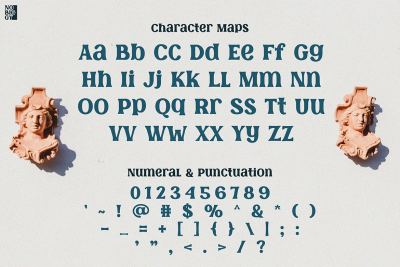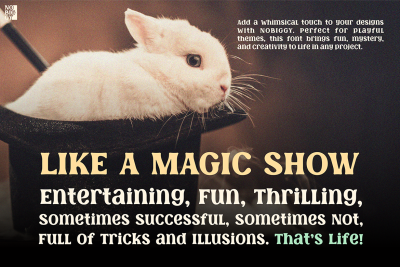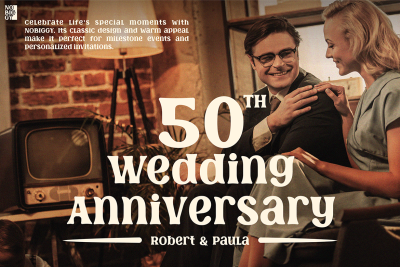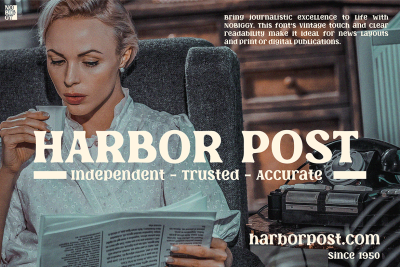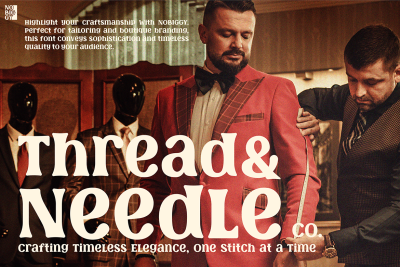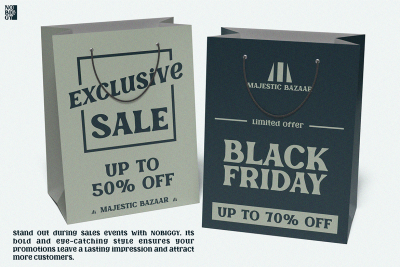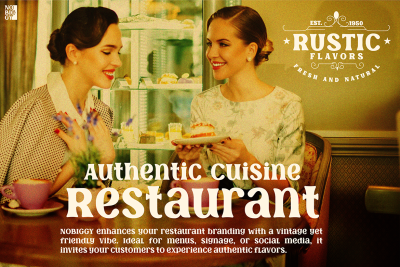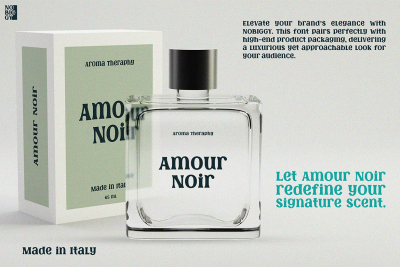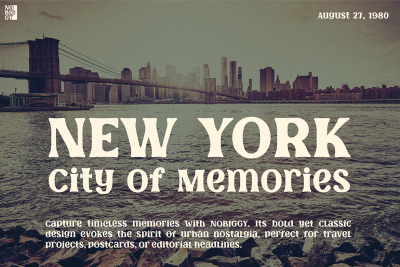
Retro Font NOBIGGY is a stylish and bold typeface that captures the essence of retro aesthetics with a modern twist. Its thick, rounded strokes and playful yet elegant letterforms exude nostalgia, evoking the charm of vintage designs from the 60s and 70s. Whether used for headlines, logos, or posters, this font effortlessly grabs attention while adding a distinctive retro vibe to any project.
The stylistic details of NOBIGGY make it unique. Each letter is carefully crafted with smooth curves and balanced proportions, ensuring visual harmony in any composition. Additionally, the font incorporates subtle decorative elements that enhance its retro appeal, making it versatile for a wide range of creative applications. Its timeless design allows it to blend seamlessly into both bold, colorful layouts and minimalist, monochromatic themes.
Moreover, NOBIGGY is highly adaptable. It works well in vintage-themed branding, editorial layouts, packaging designs, and social media graphics. The font’s character exudes energy and confidence, making it an excellent choice for projects aiming to stand out. With its retro charm and stylistic flair, Retro Font NOBIGGY is a must-have for designers seeking to add a touch of nostalgia to their work.
Retro Font NOBIGGY Who Is It For?
Retro Font NOBIGGY is perfect for creative professionals, entrepreneurs, and design enthusiasts who appreciate vintage aesthetics. Graphic designers will find it invaluable for creating bold and eye-catching visuals, such as album covers, event posters, and logo designs. Its retro yet versatile style makes it particularly appealing to those working in the entertainment, fashion, or lifestyle industries.
Small business owners, especially those in the hospitality or food industry, can use NOBIGGY to craft unique branding. For example, cafes, bars, or retro-themed restaurants can enhance their menus, signage, or packaging with this nostalgic font. Similarly, boutique shops and artisan brands can incorporate it into their product labels or promotional materials to convey a sense of individuality and charm.
Content creators and marketers will also benefit from the fontโs visual impact. Itโs an excellent choice for crafting social media posts, ads, or video overlays that aim to capture attention quickly. Its retro charm resonates well with audiences seeking designs that feel authentic and memorable.
Lastly, hobbyists and DIY enthusiasts can use Retro Font NOBIGGY to elevate their personal projects. Whether creating custom invitations, scrapbooks, or handmade gifts, this font adds a distinctive touch of personality and creativity. For anyone looking to infuse their designs with retro aesthetics and stylistic elegance, NOBIGGY is the perfect choice.